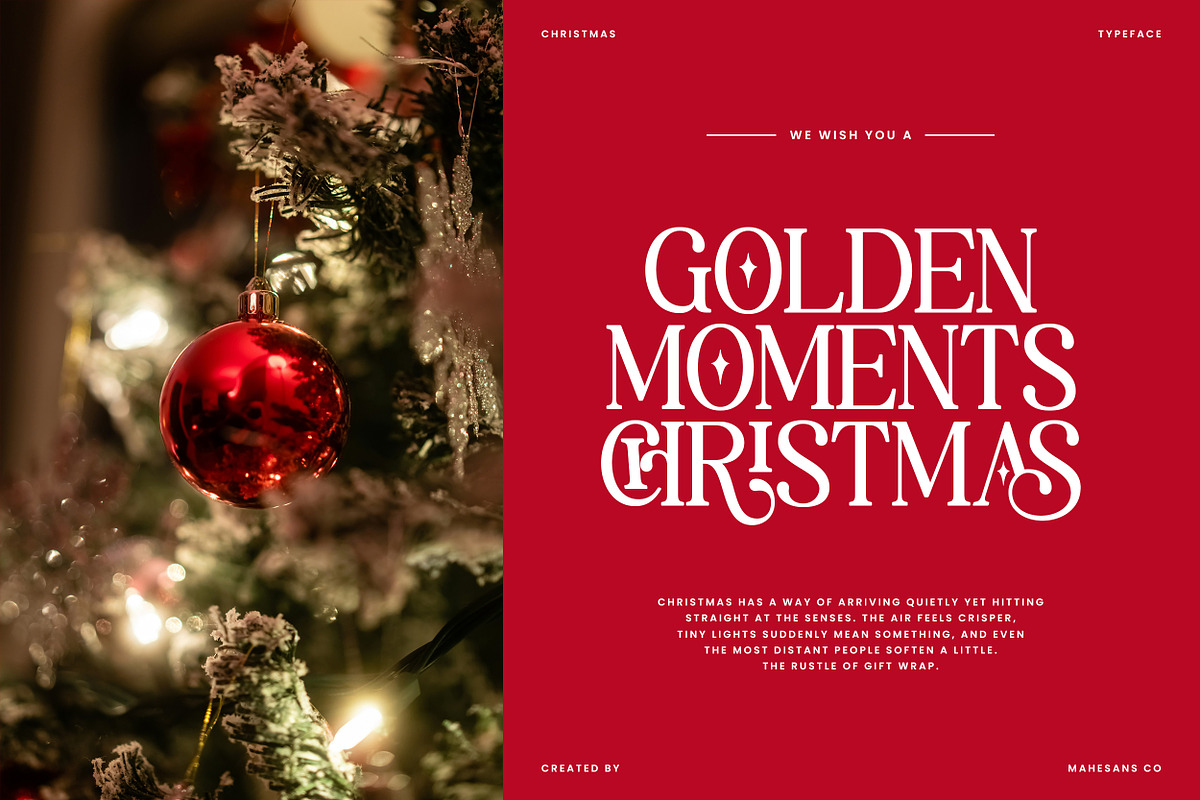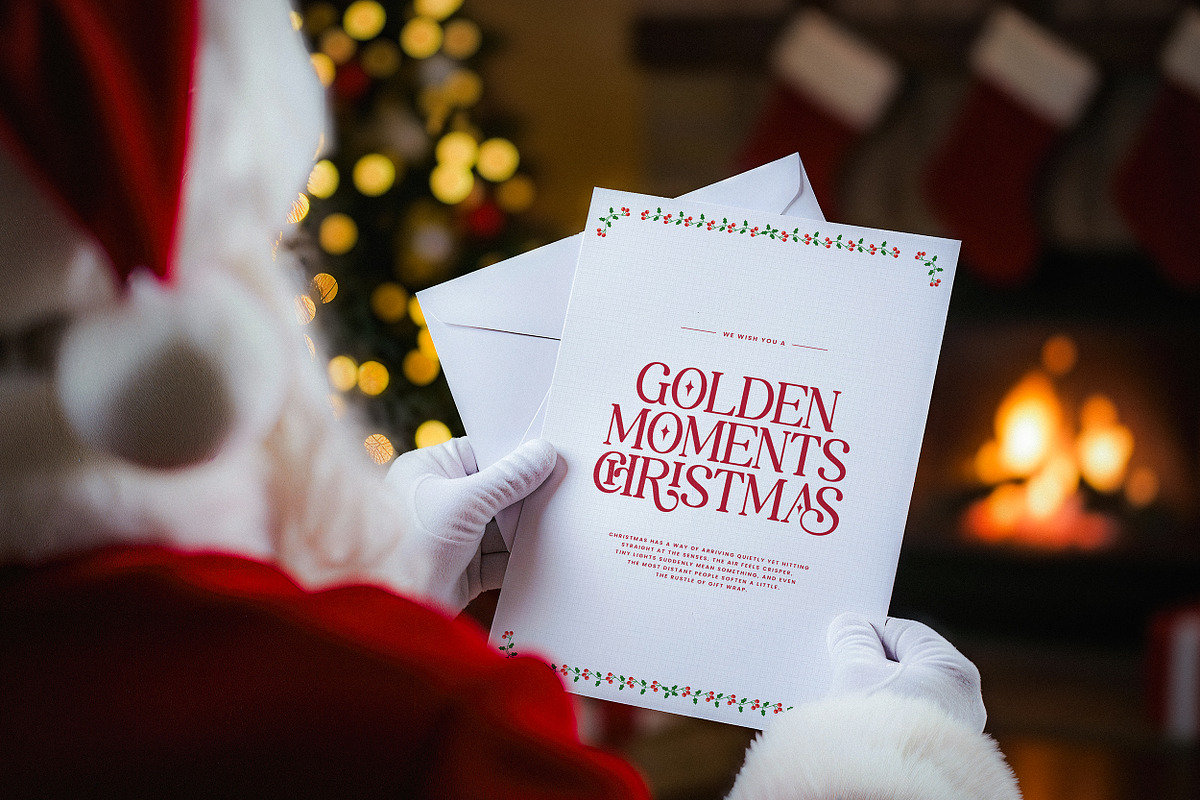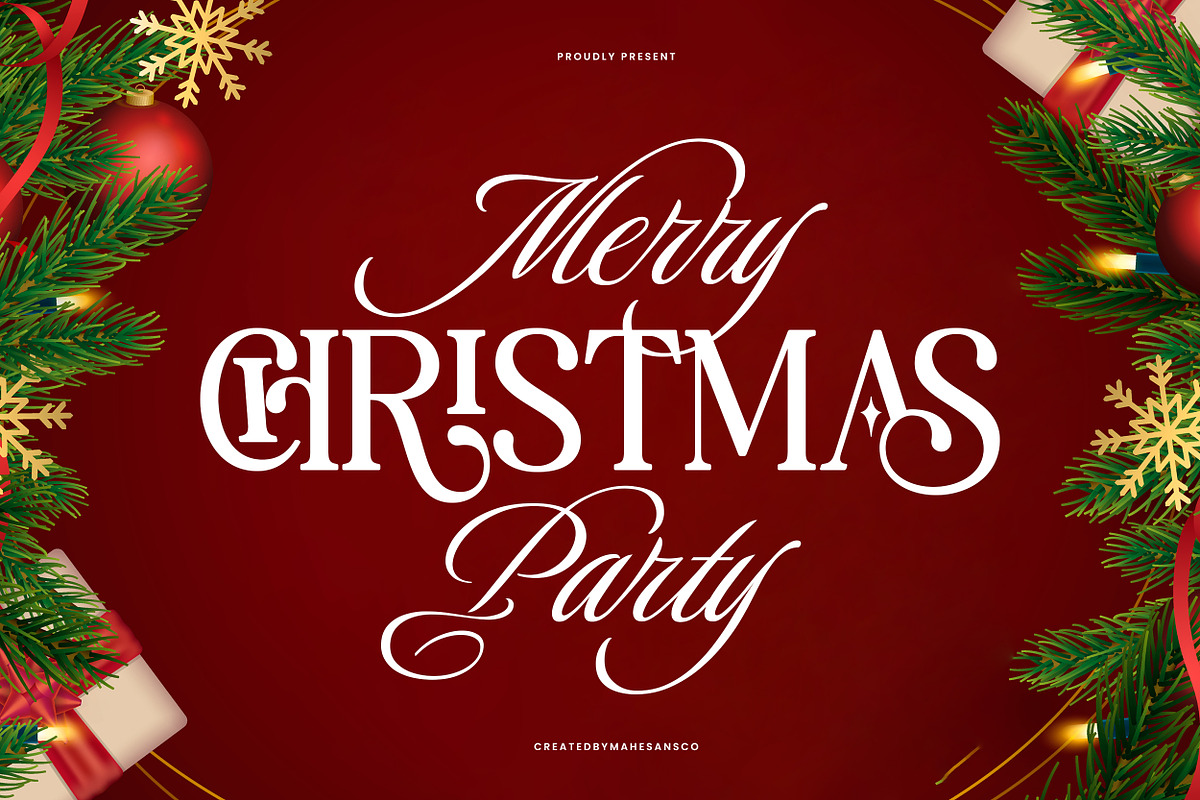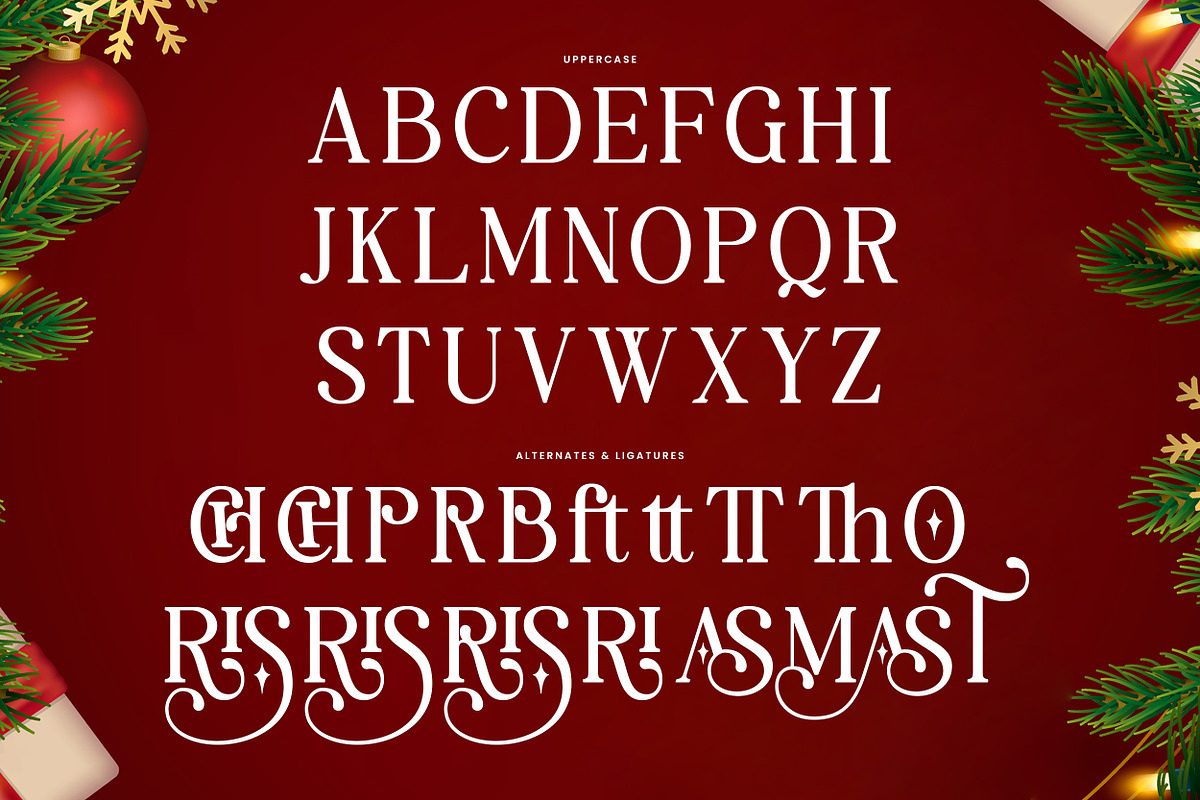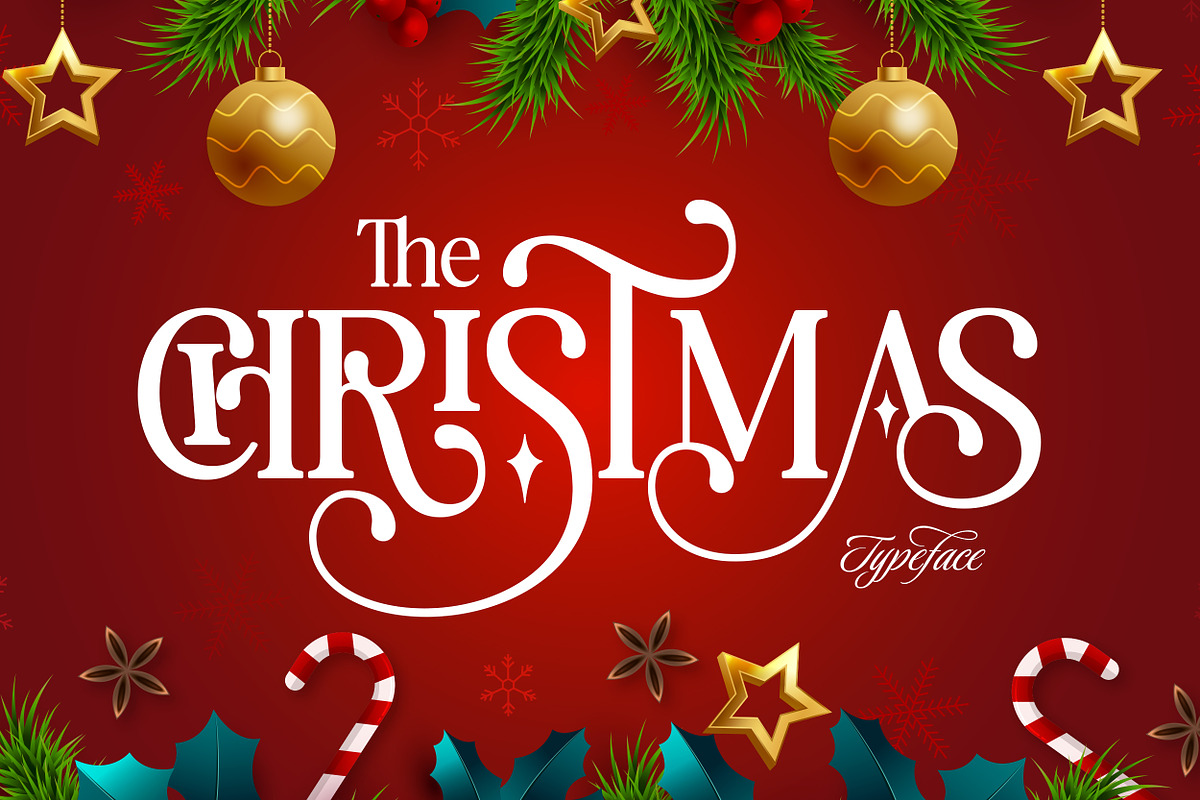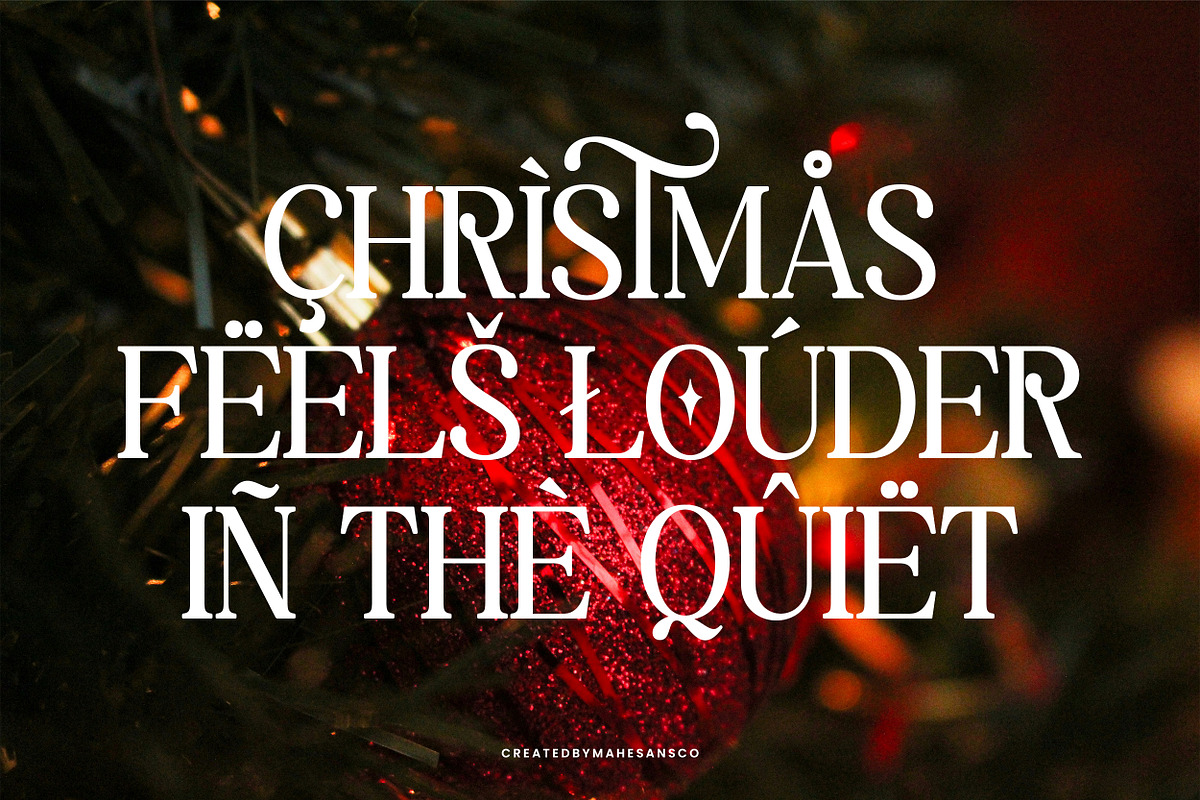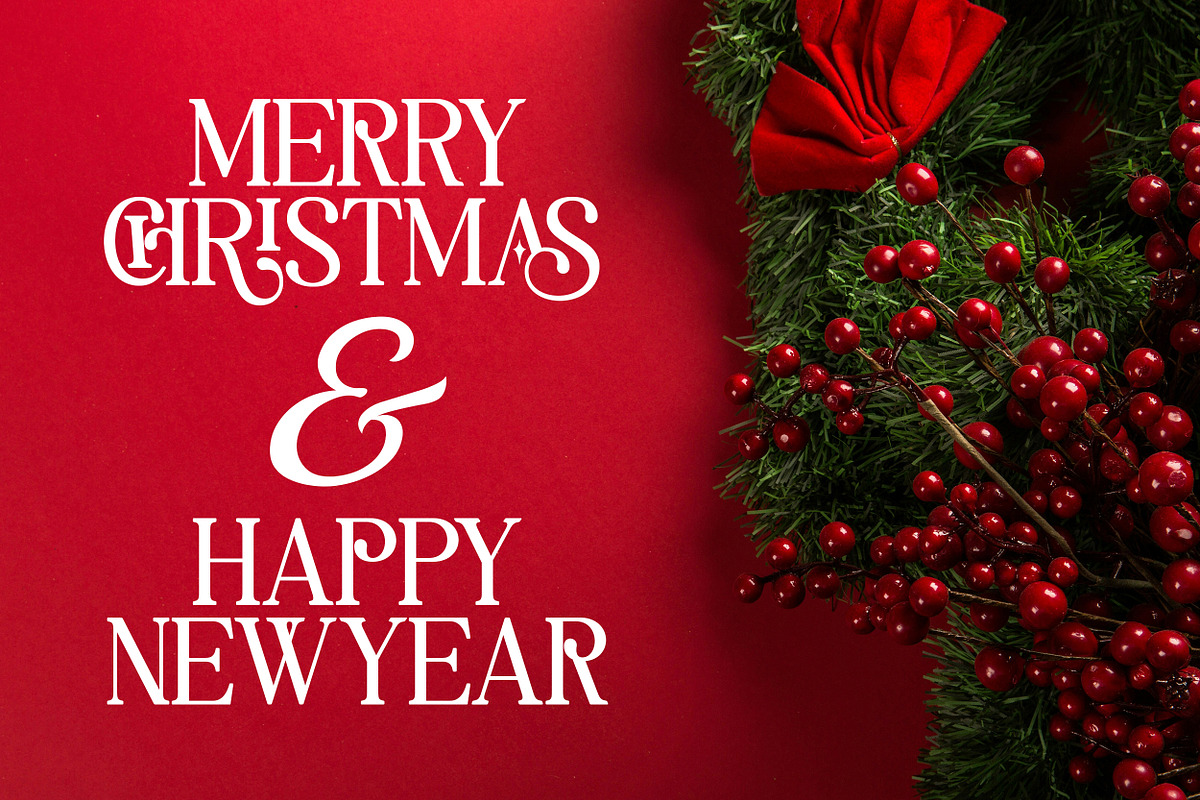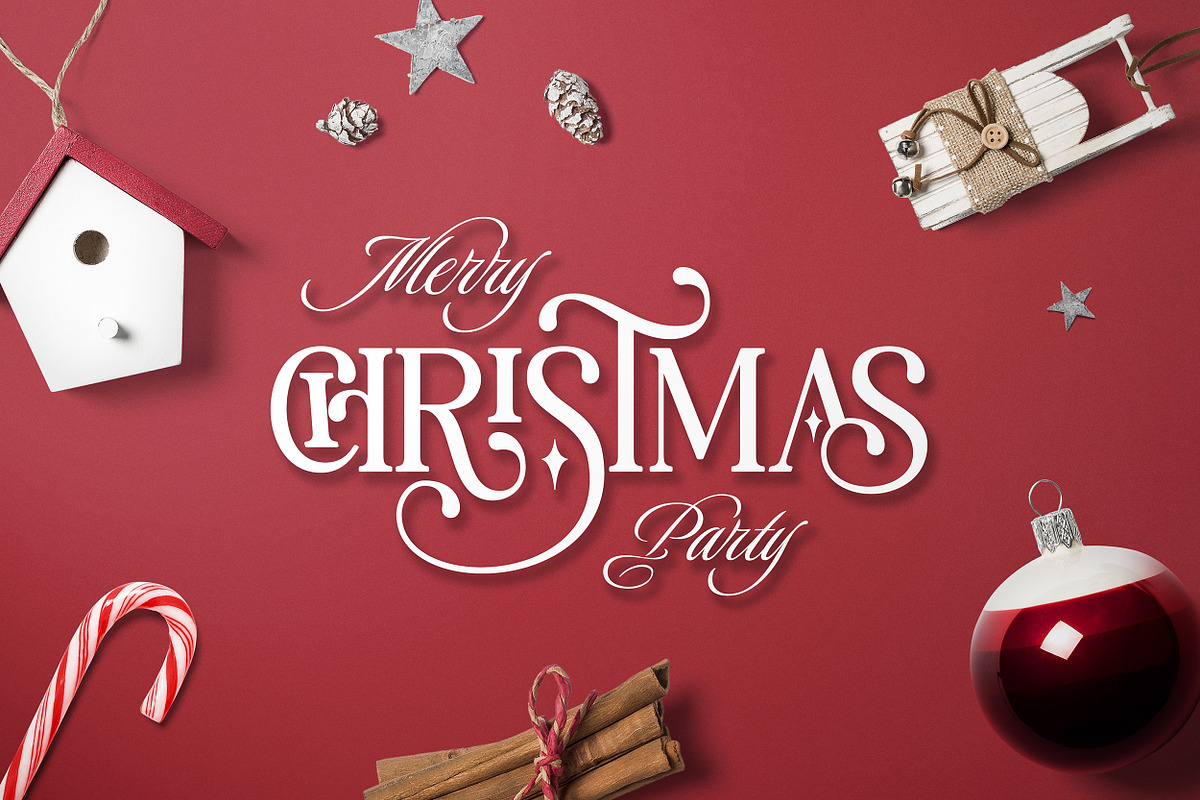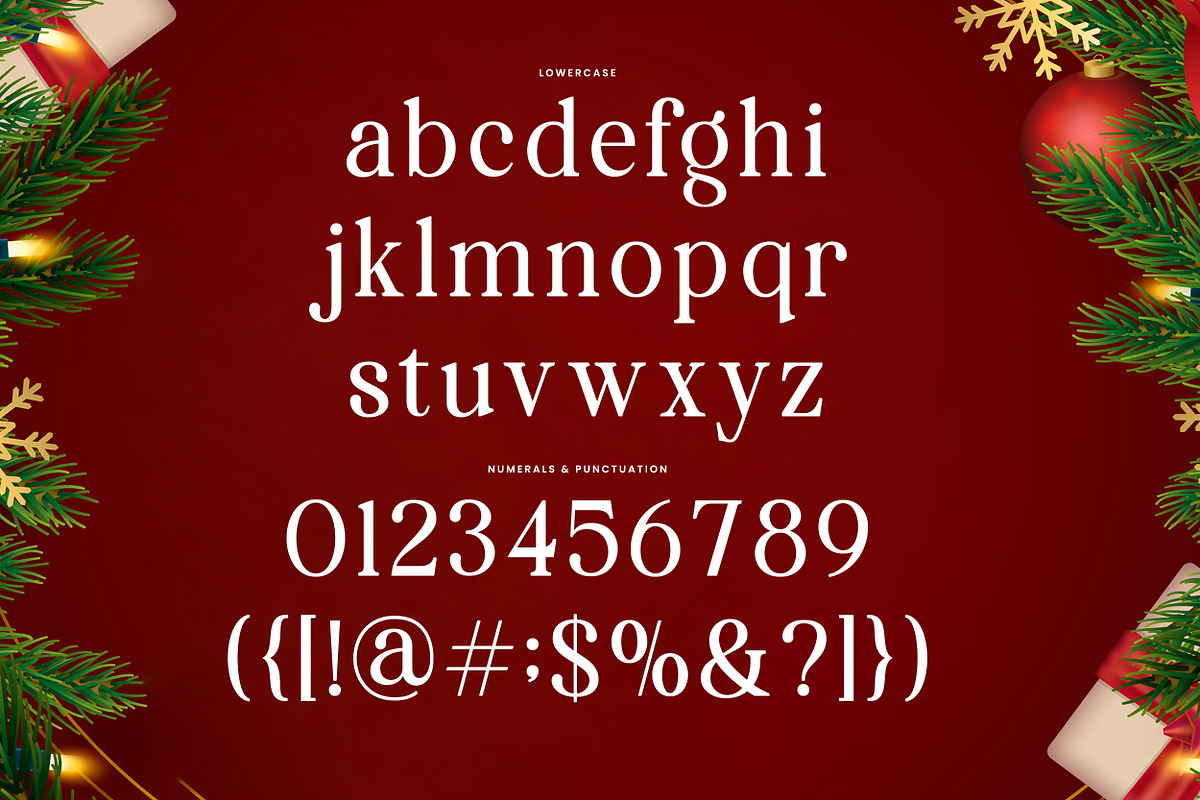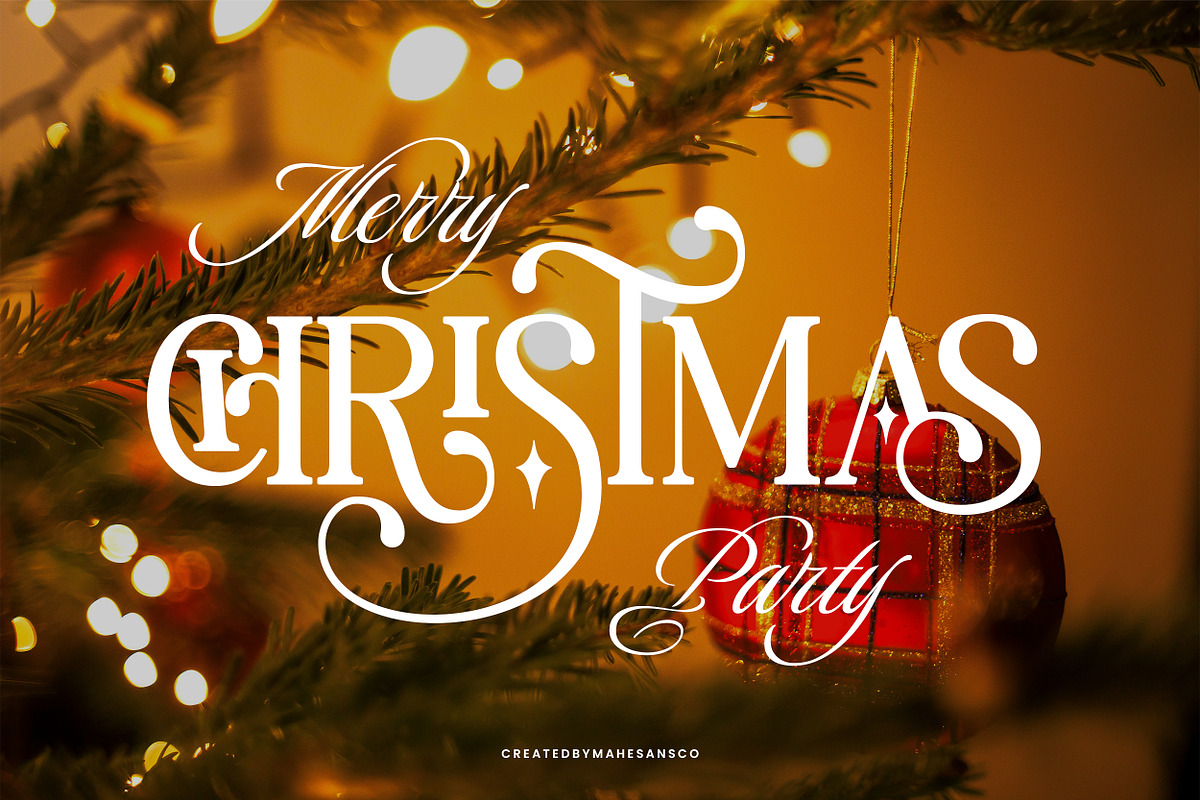
Christmas – Elegant Holiday Serif
The Christmas Typeface – Elegant Holiday Serif with Swirly Alternates & Festive Ligatures
Bring the magic of Christmas straight into your designs with The Christmas Typeface, a refined serif packed with whimsical curls, elegant alternates, and festive ligatures that instantly feel warm, bright, and seasonal. This typeface blends classic serif structure with decorative swashes that make every word look like it’s part of a holiday postcard.
Perfect for greeting cards, party invitations, gift packaging, social media posts, branding, signage, and creative holiday campaigns. It delivers a joyful, high-end look without losing readability, great for big titles, small captions, and everything in between.
- Multilanguage